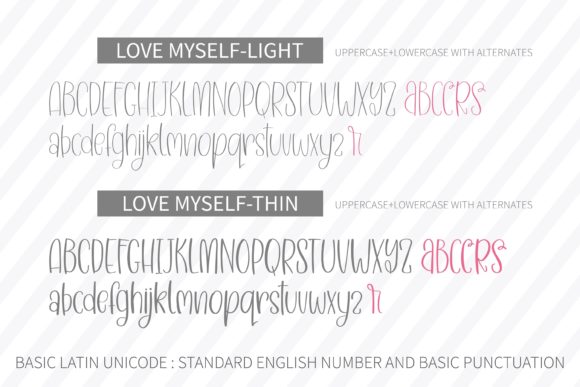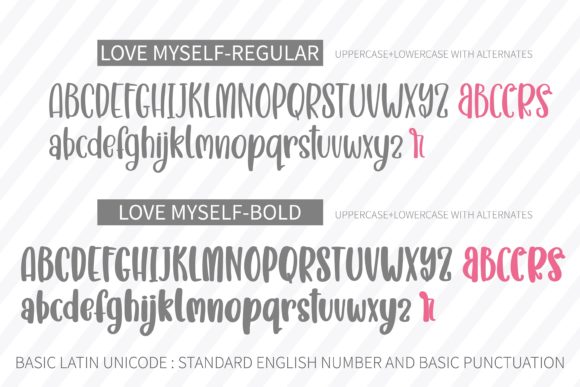
Introduction to Love Myself Font
As a designer, you’ve likely experienced that moment when you’re working on a creative project and the perfect font just clicks into place. For me, that moment was when I stumbled upon the Love Myself Font – a delightful, handwritten font that instantly breathed life into my design. Its natural and unique style has been a game-changer for me, and I’m excited to share its awesomeness with you.
The Love Myself Font is more than just a design resource; it’s a high-quality addition to any project that requires a touch of personality. With its free download option, you can experiment with this font without breaking the bank. Plus, its transparent background makes it easy to integrate into any design. Whether you’re working on a branding project, creating a social media graphic, or designing a blog post, the Love Myself Font is sure to elevate your creative output.
- High-quality design resource ideal for creative projects, including posters, flyers, and social media graphics.
- Unique, hand-drawn style adds a personal touch to any design project, from wedding invitations to branding materials.
- Perfect for designers looking for a free, high-quality font to elevate their creative project and leave a lasting impression.
Honest Review: Love Myself Font
I recently came across the Love Myself Font and was excited to dive in and see what it had to offer. As a designer, I’m always on the lookout for high-quality design resources that can elevate my creative projects.
One of the standout features of the Love Myself Font is its transparent background, which makes it incredibly versatile and easy to use. I also appreciate the high-quality design and modern aesthetic, which would be perfect for a variety of projects, from social media graphics to marketing materials.
- ✨ High-quality design with a modern aesthetic
- ✨ Suitable for a wide range of creative projects
- ⚠️ Limited font variations (only a few options available)
- ⚠️ Not ideal for complex or detailed text layouts
Overall, I think the Love Myself Font is a solid choice for designers looking for a modern and easy-to-use font. While it may have some limitations, its high-quality design and transparent background make it a great addition to any design resource collection.
Common Use Cases for Love Myself Font
The Love Myself Font is perfect for various design projects, including social media graphics, blog posts, and presentations. Its high-quality design and transparent background make it ideal for creative projects, and its free download option makes it accessible to designers of all levels.